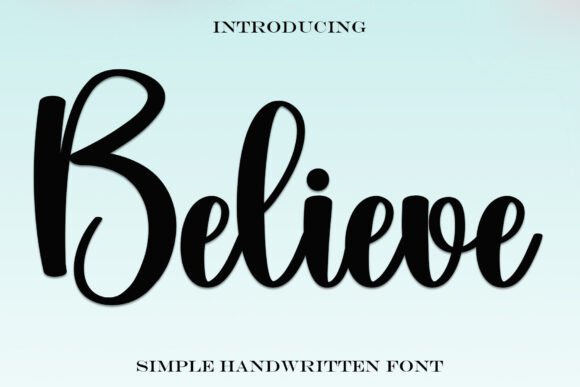
Introducing Believe Font: Elevate Your Designs with Timeless Elegance
In the world of typography, fonts play a crucial role in conveying the tone and personality of a design. For designers and crafters seeking to add a touch of sophistication and class to their projects, Believe Font is an exceptional choice. This trendy handwritten font boasts a contemporary atmosphere and impeccable form, drawing inspiration from timeless classic calligraphy.
The Essence of Believe Font
Believe Font is a masterpiece of modern typography, carefully crafted to bring elegance and refinement to any design project. Its unique blend of traditional calligraphy and modern sensibilities makes it an ideal choice for designers looking to create stunning visual content. Whether you’re working on a branding project, packaging design, or digital artwork, Believe Font is sure to impress.
Key Features of Believe Font
- Trendy Handwritten Style: Believe Font features a beautiful, handwritten style that adds a personal touch to your designs.
- Contemporary Atmosphere: With its clean lines and modern aesthetic, this font is perfect for designers seeking to create fresh and contemporary designs.
- Impeccable Form: Inspired by classic calligraphy, Believe Font boasts impeccable form and attention to detail, ensuring that your designs look polished and professional.
- Elegance and Class: This font is designed to add a touch of sophistication and elegance to any design project, making it ideal for high-end branding, luxury packaging, and more.
Uses of Believe Font
Believe Font is a versatile typeface that can be used in a wide range of design projects, including:
- Branding and Logos: Create stunning logos and brand identities with Believe Font, perfect for high-end businesses and luxury brands.
- Packaging Design: Add a touch of elegance to your packaging designs with Believe Font, ideal for premium products and luxury goods.
- Digital Artwork: Use Believe Font to create beautiful digital artwork, including social media graphics, blog posts, and more.
- Stationery and Print Design: Elevate your print designs with Believe Font, perfect for business cards, letterheads, and other stationery.
Why Choose Believe Font?
With so many fonts available, why choose Believe Font? Here are just a few reasons why designers and crafters love this exceptional typeface:
- Unique and Versatile: Believe Font is a one-of-a-kind typeface that can be used in a wide range of design projects.
- High-Quality Design: With its impeccable form and attention to detail, Believe Font is a high-quality design that will elevate your projects.
- Easy to Read: This font is designed to be easy to read, making it perfect for body text and other applications where legibility is key.
In conclusion, Believe Font is an exceptional choice for designers and crafters seeking to add a touch of elegance and class to their design projects. With its trendy handwritten style, contemporary atmosphere, and impeccable form, this font is sure to impress. Whether you’re working on a branding project, packaging design, or digital artwork, Believe Font is the perfect choice for creating stunning visual content.